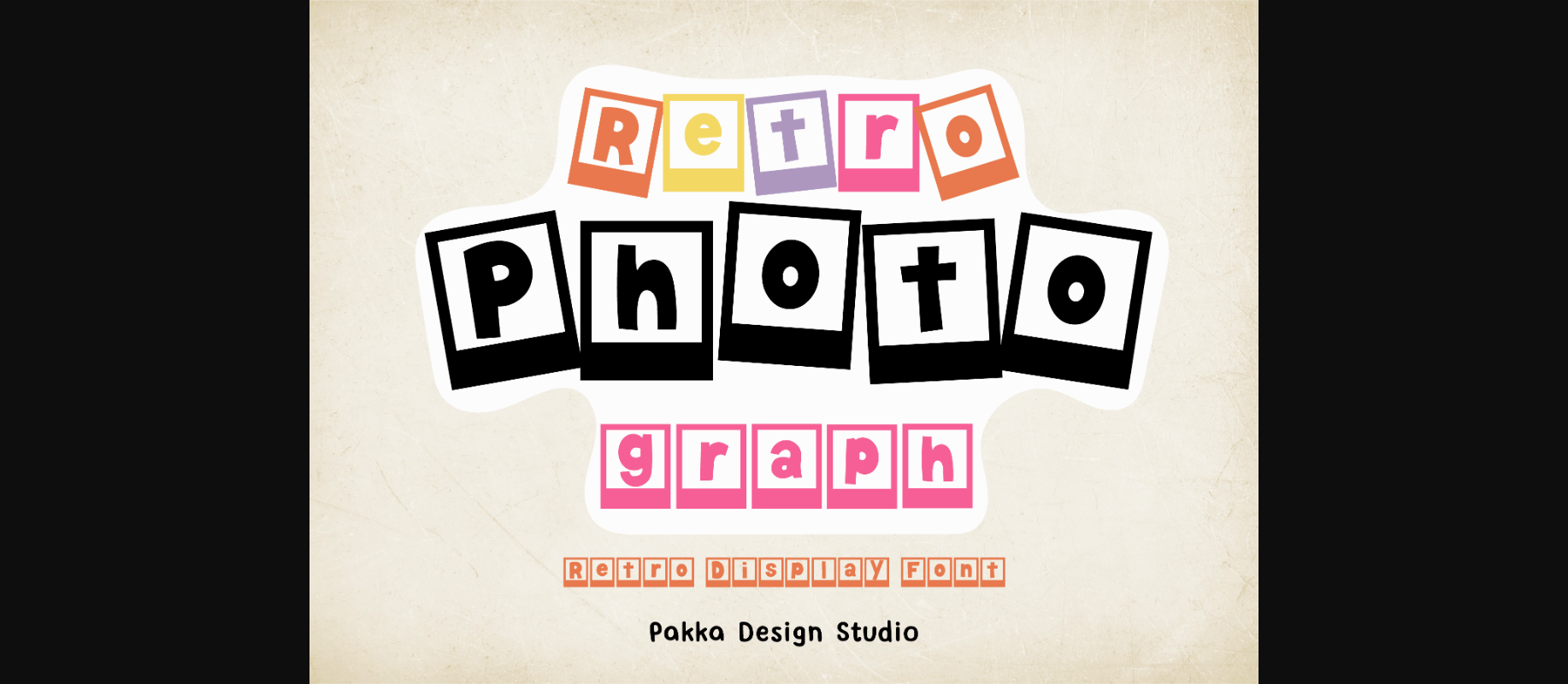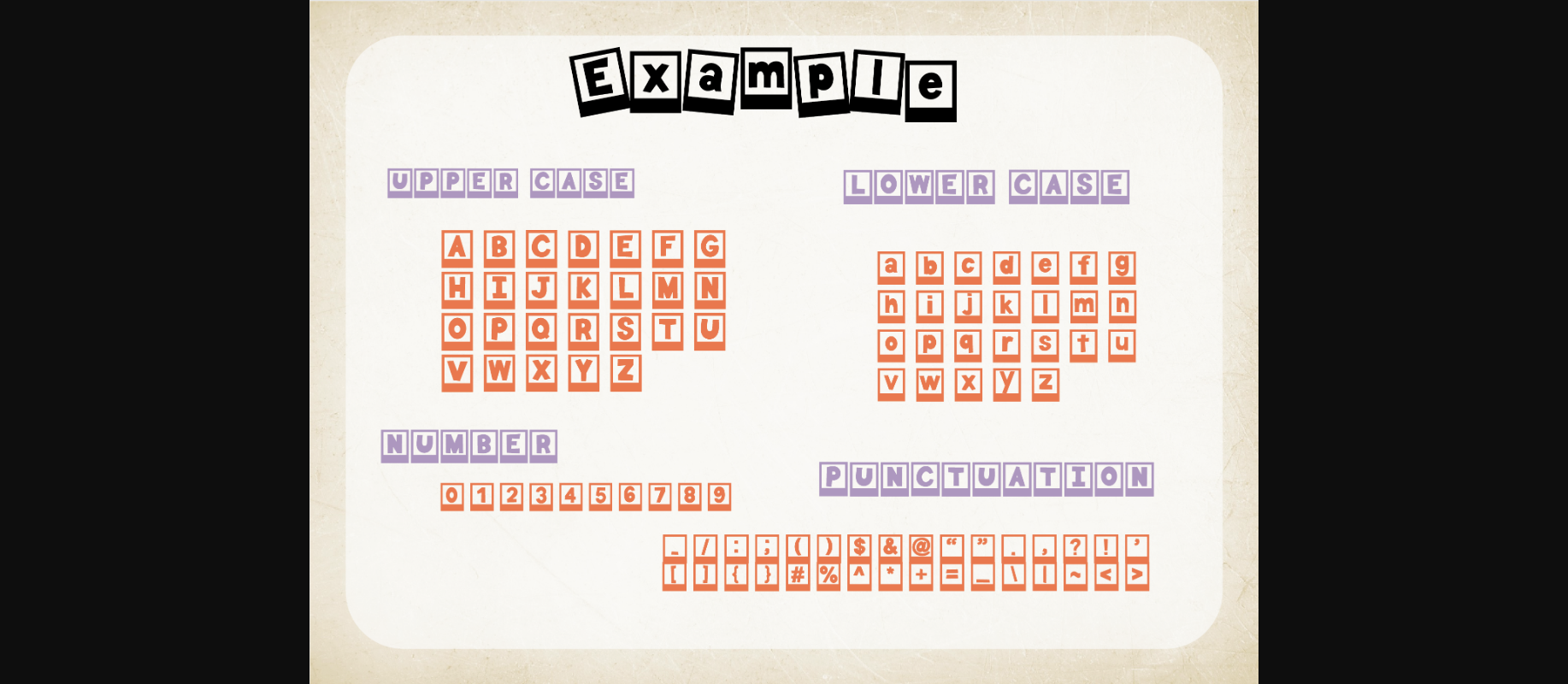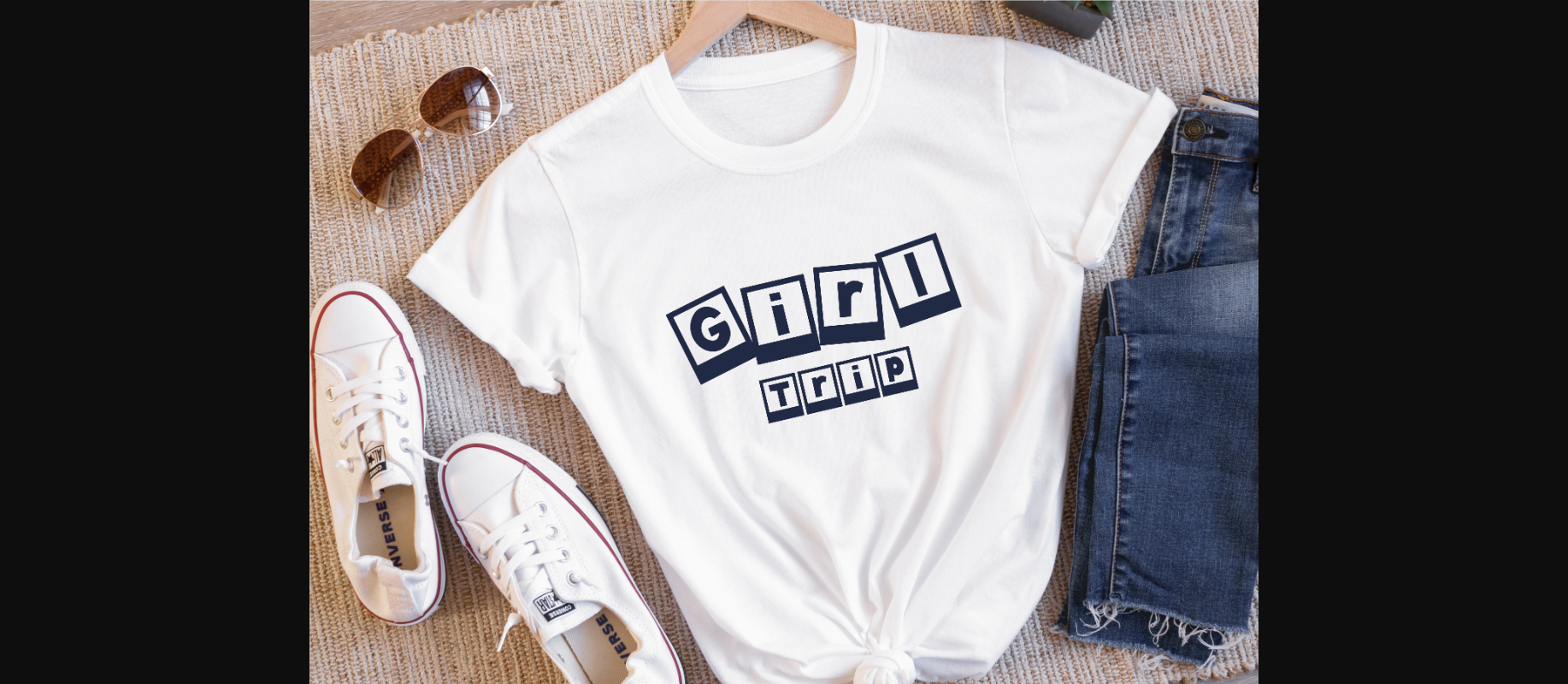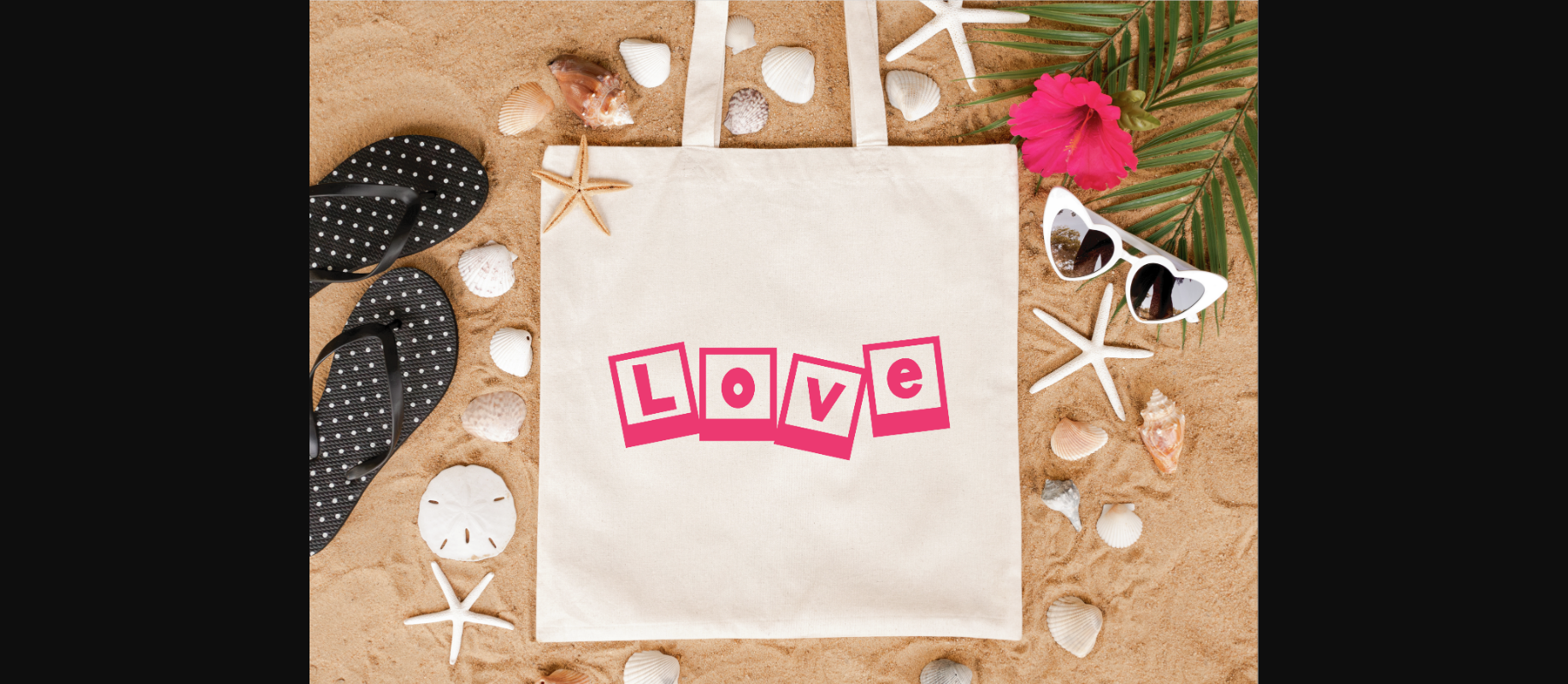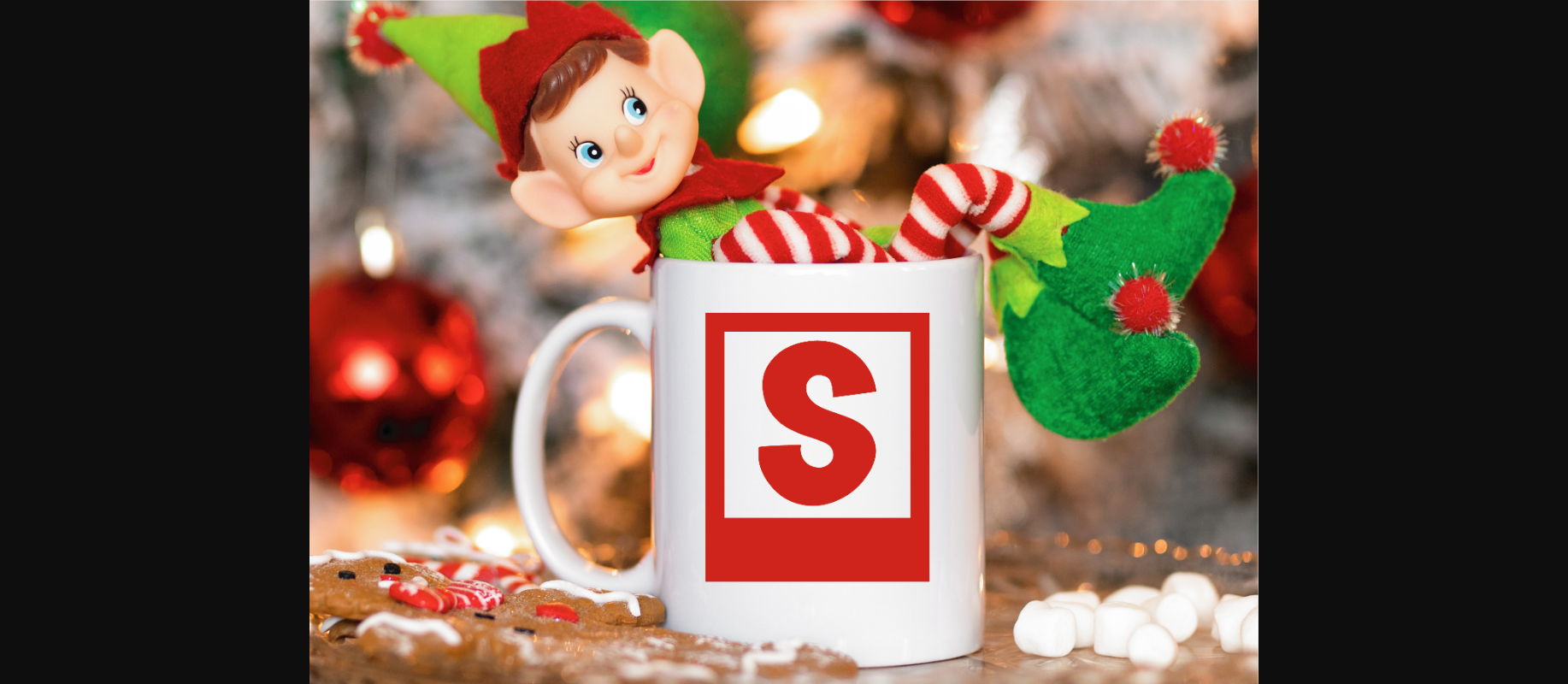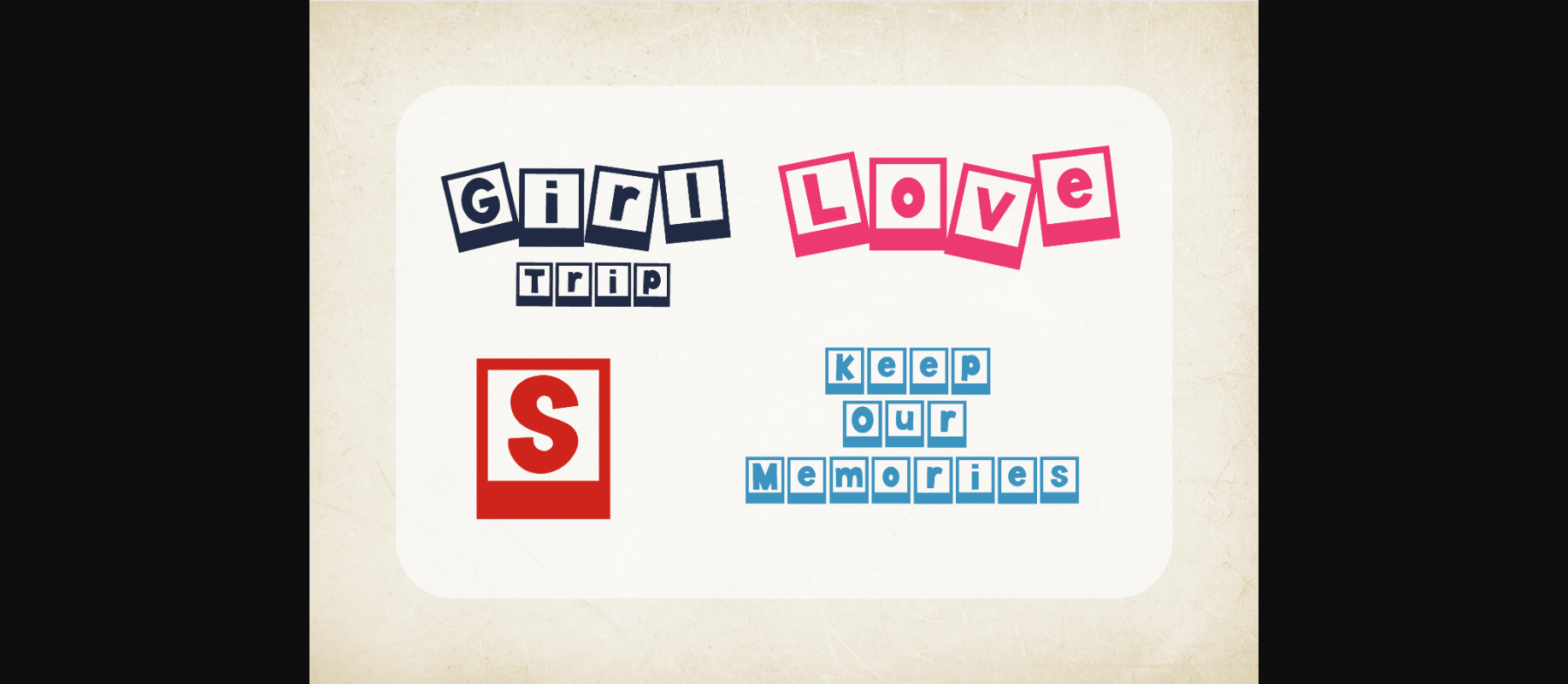
Retro Photograph Font
About Retro Photograph Font
The “Retro Photograph” display font is a journey through time, as if each character is captured within a vintage photo frame. Each letter evokes the nostalgia of old snapshots, filled with memories and stories. This font captures the essence of timeless moments, reminiscent of flipping through family photo albums and rediscovering the past. With its photo frame-inspired appearance, this font adds a touch of vintage authenticity to your design. It conveys the spirit of cherished memories and the sentimental world of retro photography, making it a perfect choice for projects related to kids, family, or anything that celebrates the beauty of the past